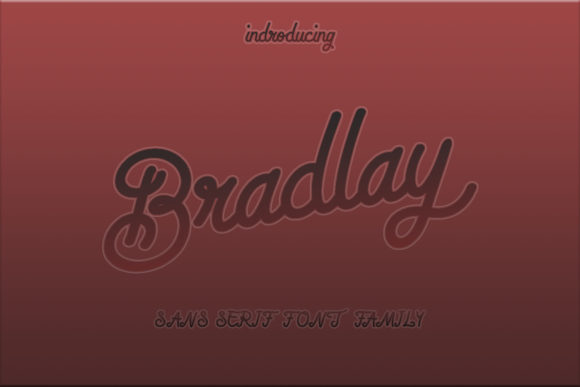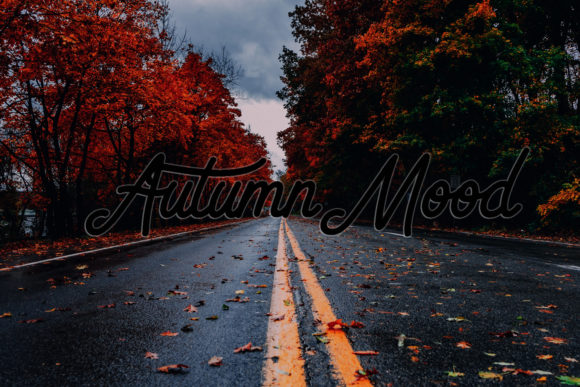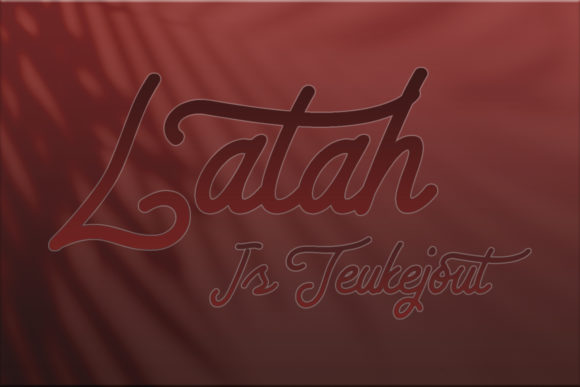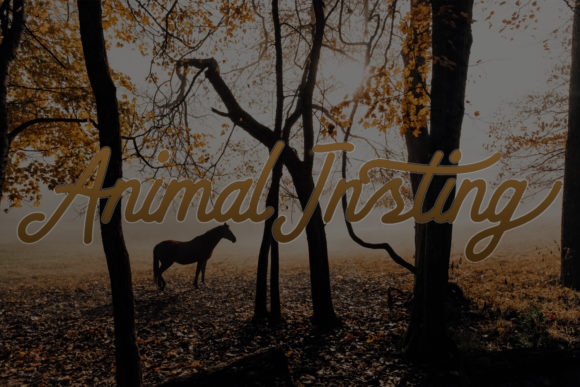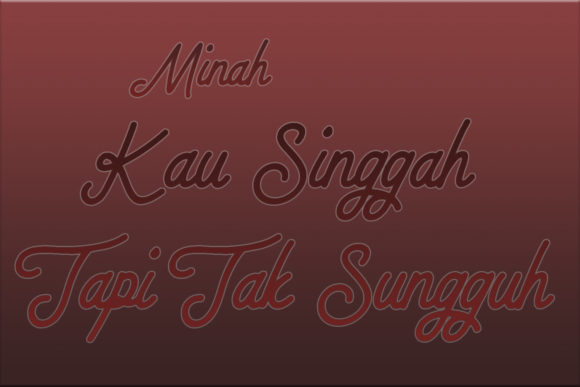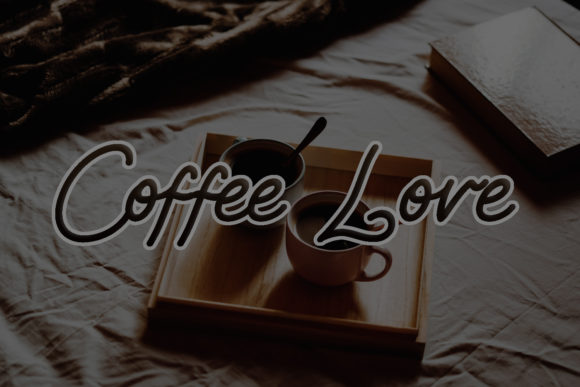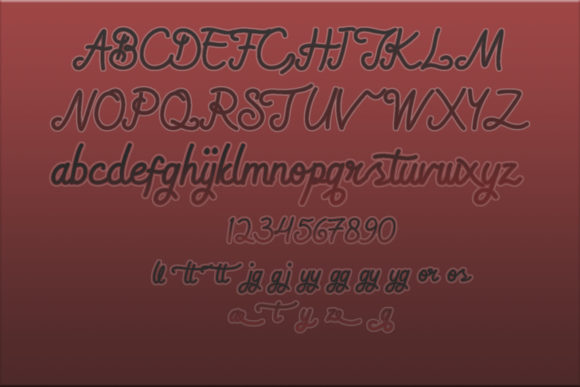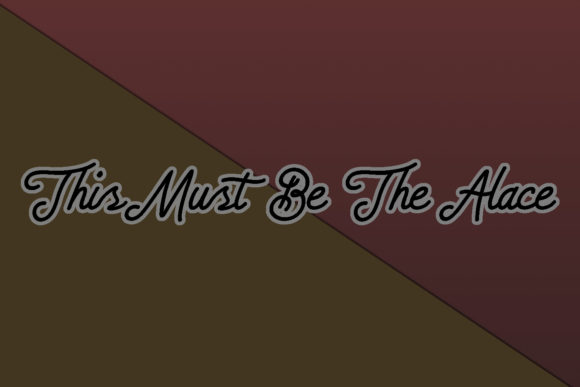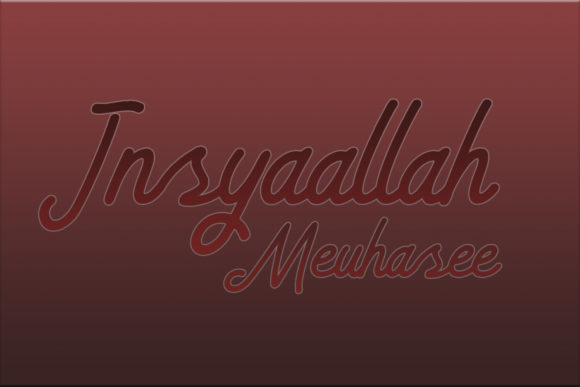
HomeSans Serif FontsBradlay Font Sans Serif Fonts Bradlay Font FacebookXPinterestWhatsApp Bradlay Font 1 of 9 About Bradlay Font Bradlay is a lovely and smart sans serif font that will easily turn any design idea into a true standout! DOWNLOAD NOW People also explored Hani Christmas Monogram Font Frances Shaniya Font Halloween Font Atlantic Time Font Wood Pirates Font Mitchegrin Font Flat Tracker Font Fjord Font Winter Glows Font 284 0 TagsBradlayBradlay Font Previous articleLaguna Duo FontNext articleSaint Carjauf Font LEAVE A REPLY Cancel reply Comment: Please enter your comment! Name:* Please enter your name here Email:* You have entered an incorrect email address! Please enter your email address here Website: Save my name, email, and website in this browser for the next time I comment. Personal Use Free Masker Area Personal Use Free Read more about this font Edo SZ Personal Use Free Read more about this font Wordan Personal Use Free Read more about this font Arnprior Personal Use Free Read more about this font BLOG Free vs Paid Fonts: Why Investing in Premium Fonts Is Worth It Free vs Paid Fonts: Why Premium Fonts Are Worth It in 2025 The debate of free vs paid fonts continues in the design world. While... Top 7 Google Fonts Alternatives for Faster and Privacy-Friendly Web Design (2025) Where to Buy American Fonts Online in 2024 Best Fonts for T-Shirt Design – Top 2025 Picks